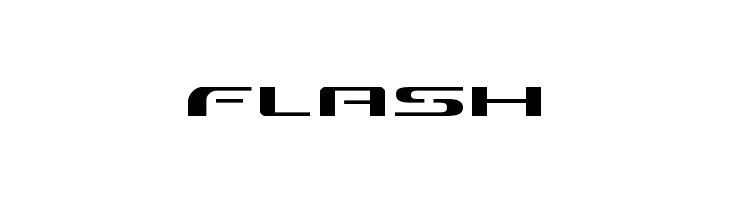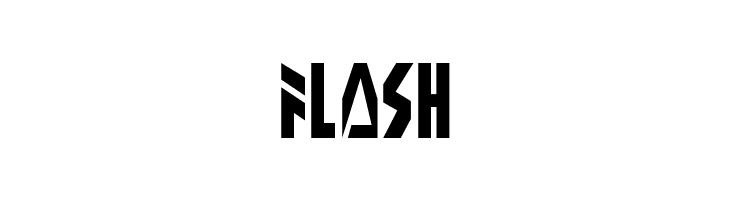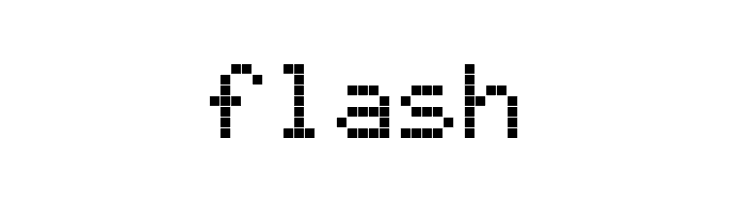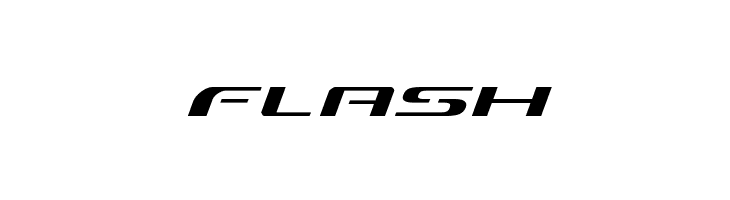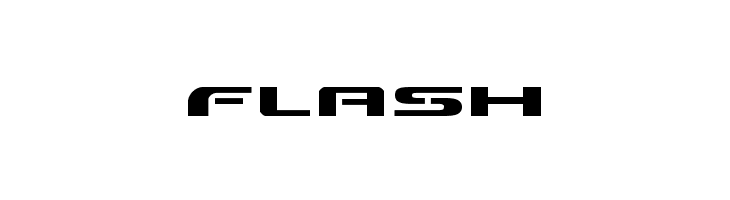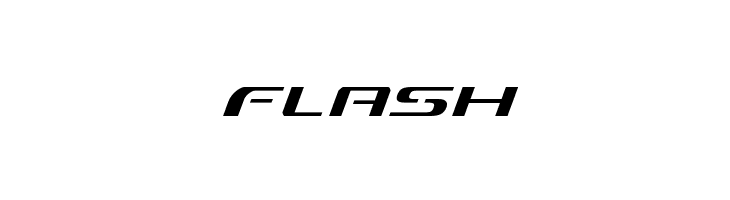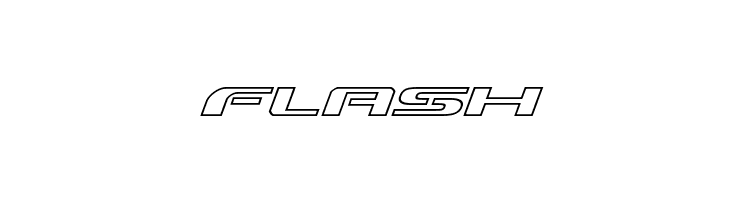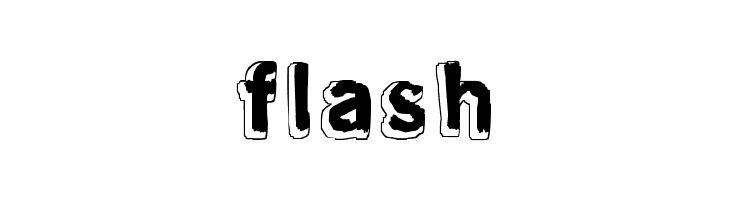
A bold, playful font with a hand-drawn, three-dimensional effect.
A bold, angular, geometric font with a modern edge.
A bold, angular font with geometric and blocky letterforms.
A bold, geometric sans-serif font with a modern and clean design.
A modern, geometric sans-serif font with a clean and professional look.
A bold, geometric font with a modern and clean style.
A bold, geometric font with modern and angular characteristics.
A bold, playful handwritten font with dynamic strokes and a casual style.
A playful, hand-drawn font with bold, irregular strokes and a casual style.
A futuristic, geometric font with bold, angular letterforms.
A bold, futuristic font with geometric shapes and sharp angles.
A bold, 3D geometric font with a futuristic style.
A bold, 3D italic font with a futuristic and dynamic style.
A bold, futuristic font with geometric and angular characteristics.
A futuristic, geometric font with a bold, condensed style.
A sleek, modern, condensed italic font with medium contrast.
A bold, futuristic font with expanded width and geometric design.
A bold, expanded italic font with a modern, dynamic style.
A sleek, italicized font with a futuristic and dynamic style.
A futuristic, angular typeface with a bold, geometric style.
A futuristic, italicized font with sharp angles and a sleek design.
A bold, futuristic outline font with geometric and modern characteristics.
A modern, italic, outlined font with a dynamic and futuristic style.
A modern, semi-italic font with a sleek, futuristic design.
A dynamic, italicized font with a futuristic and bold design.
A bold, decorative font with a fragmented, pixelated texture.
A pixelated, retro-style font with a blocky, geometric design.